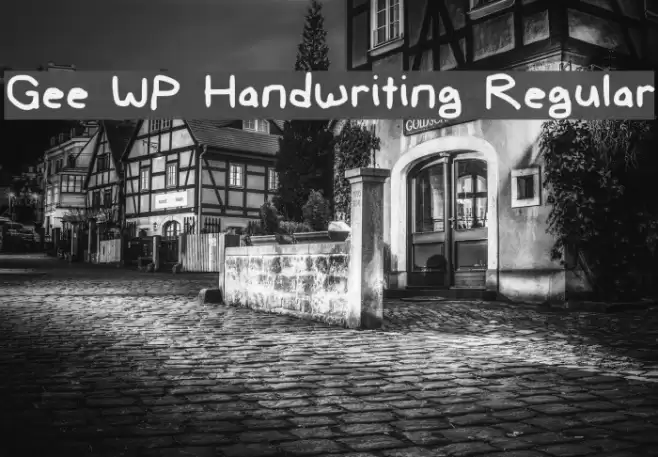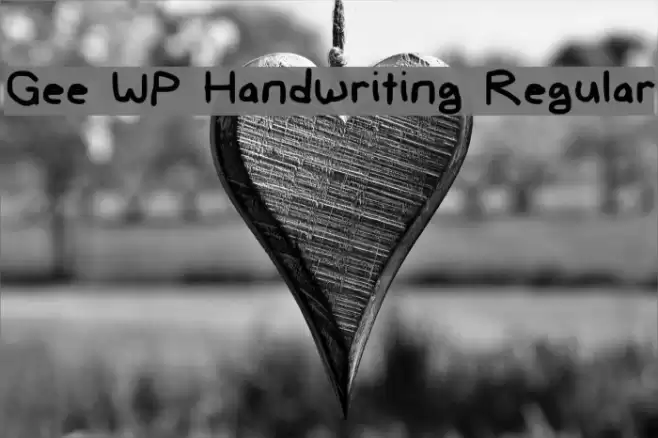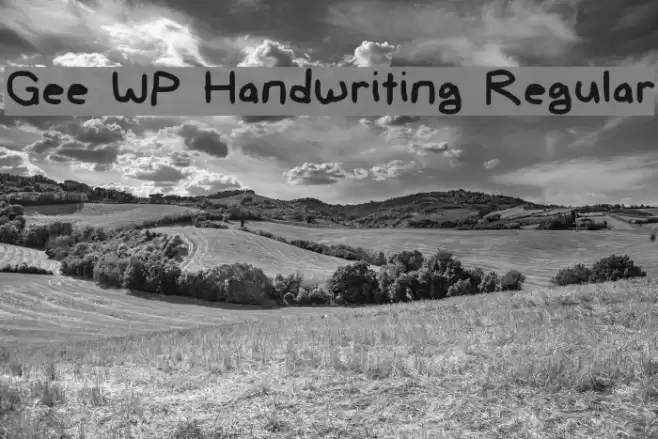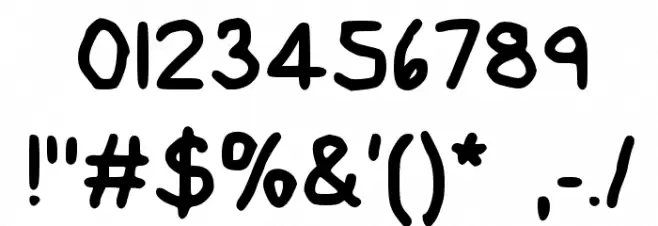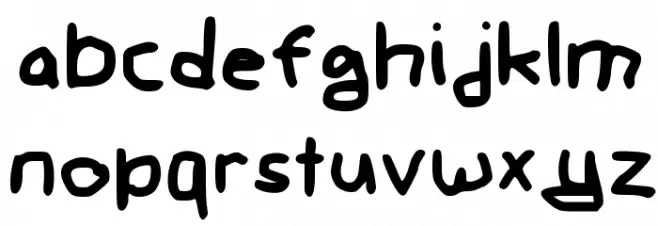
Gee WP Handwriting Regular Font
Gee WP Handwriting Regular Description
This font features a playful and casual handwritten style, characterized by its rounded and slightly irregular letterforms. The strokes are moderately thick, giving it a bold appearance, yet maintaining a friendly and approachable feel. The characters are well-spaced, ensuring readability while preserving the informal aesthetic. The font includes a full set of uppercase and lowercase letters, numbers, and a variety of special characters, making it versatile for various design needs. Its handwritten nature adds a personal touch, ideal for projects that require a human element.
A playful, casual handwritten font with rounded, bold letterforms from Uncategorized fonts.
- Proposed Projects: Ideal for greeting cards, children's books, casual branding, and social media graphics.
- Overall Style: Casual, Playful
- Use Case: Logos, Headlines, Informal Text